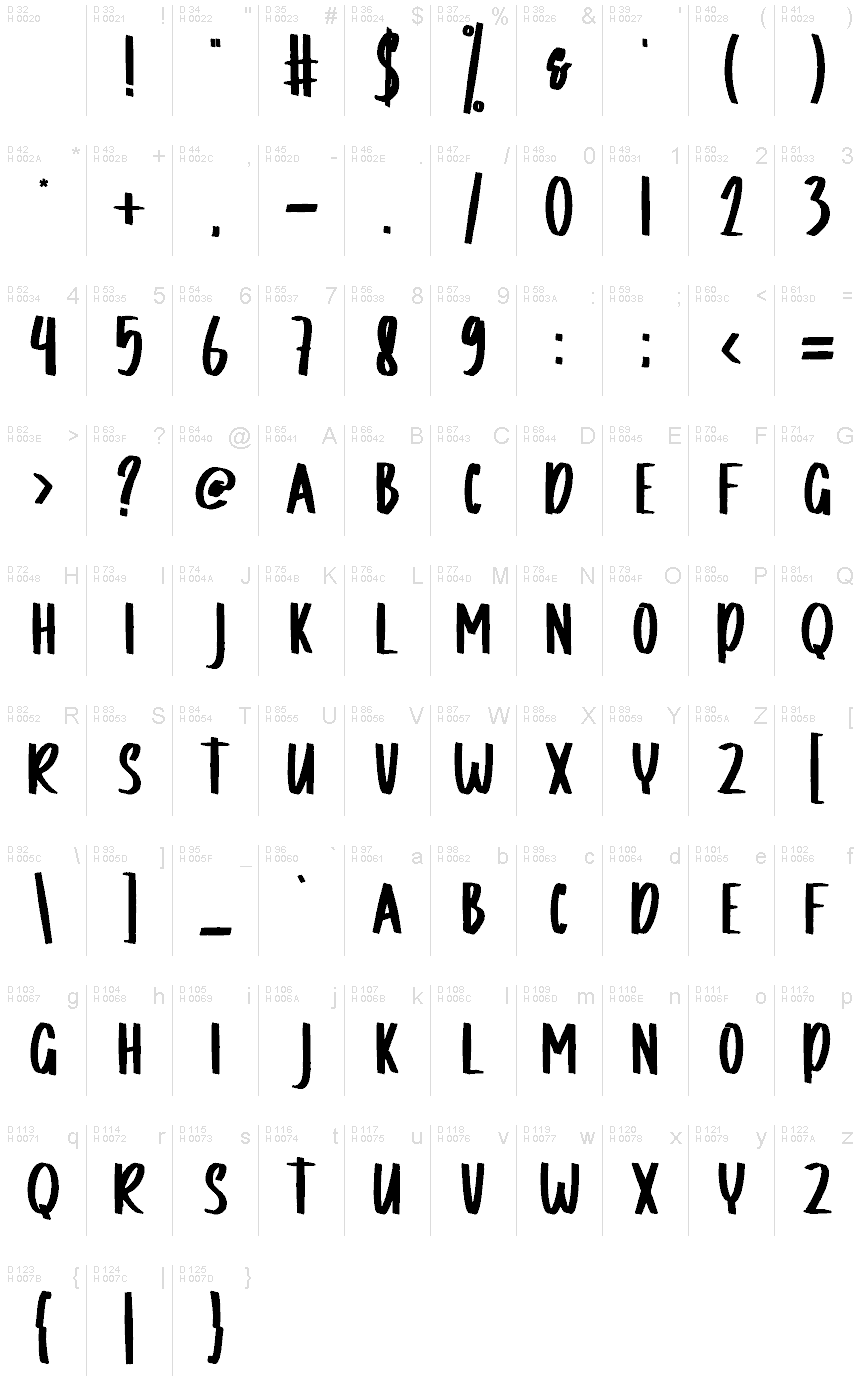
Klhamer
Klhamer font is a free handwritten font from Skiiller Studio that emphasizes irregular shapes with both size and form differences. The letters have a rough texture with some spots completely unfilled, adding to its hand-drawn appearance. Its overall style is casual but expressive, just like the likely mood of an artist putting these letters on paper. To make it even more personable, the designer went for a condensed look that could easily fit into modern-day trends and designs.
Get your emotional message across by using Klhamer on T-shirts, flyers, posters, packaging boxes or bags. Also apply to online projects such as social media posts and banners as well as graphic designs used for various websites. Less obvious options can include whiteboards with doodles around them and comics or other illustrations with text above or in between drawn content.